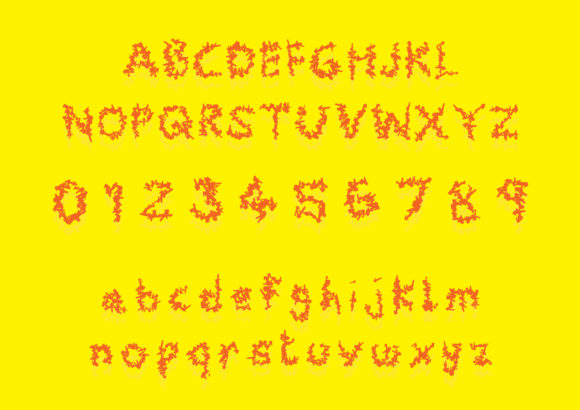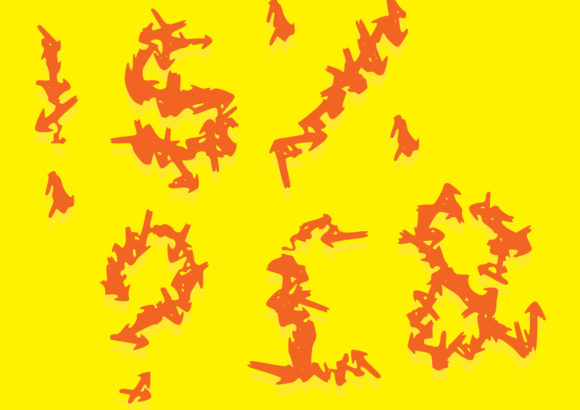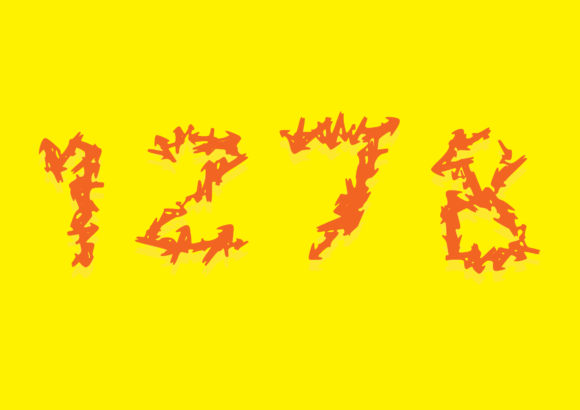
Introducing Arrows Font: Add a Playful Touch to Your Crafting Projects
Are you tired of using the same old fonts for your crafting projects? Look no further than Arrows Font, a fun and playful display font that’s sure to add a creative twist to your designs. With its unique and cheerful style, Arrows Font is perfect for crafters, designers, and anyone looking to add a personal touch to their projects.
What is Arrows Font?
Arrows Font is a display font designed to make a statement. Its bold and playful style features arrow-shaped letters that are sure to grab attention. The font is perfect for use in crafting projects, such as scrapbooking, card making, and DIY signage. With its fun and quirky design, Arrows Font is also great for use in party decorations, gift tags, and other celebratory materials.
Unique Features of Arrows Font
So, what sets Arrows Font apart from other fonts? Here are a few of its unique features:
- Arrow-shaped letters: The font features arrow-shaped letters that add a playful touch to any project.
- Bold and eye-catching: The font is bold and eye-catching, making it perfect for use in titles, headings, and other prominent text.
- Highly versatile: Arrows Font can be used in a variety of crafting projects, from scrapbooking to DIY signage.
- Easy to read: Despite its playful design, Arrows Font is easy to read, making it perfect for use in projects where text needs to be clear and legible.
Creative Ways to Use Arrows Font
So, how can you use Arrows Font in your crafting projects? Here are a few creative ideas to get you started:
- Scrapbooking: Use Arrows Font to add a playful touch to your scrapbook pages. Perfect for titles, headings, and journaling.
- Card making: Add a personal touch to your handmade cards with Arrows Font. Use it for titles, greetings, and messages.
- DIY Signage: Use Arrows Font to create eye-catching signs for parties, events, and special occasions.
- Party Decorations: Use Arrows Font to create playful party decorations, such as banners, garlands, and gift tags.
Tips for Using Arrows Font
Here are a few tips for using Arrows Font in your crafting projects:
- Use it sparingly: Arrows Font is bold and eye-catching, so use it sparingly to avoid overwhelming your project.
- Pair it with other fonts: Pair Arrows Font with other fonts to create a unique and interesting contrast.
- Experiment with colors: Arrows Font looks great in a variety of colors, so experiment with different colors to find the one that works best for your project.
- Have fun: Most importantly, have fun with Arrows Font! Its playful design is perfect for adding a personal touch to your crafting projects.
Arrows Font is a fun and playful display font that’s perfect for adding a creative twist to your crafting projects. With its unique arrow-shaped letters and bold design, it’s sure to grab attention and add a personal touch to your designs. Whether you’re a crafter, designer, or just looking for a fun font to use in your projects, Arrows Font is a great choice. So why not give it a try and see what creative possibilities you can come up with?